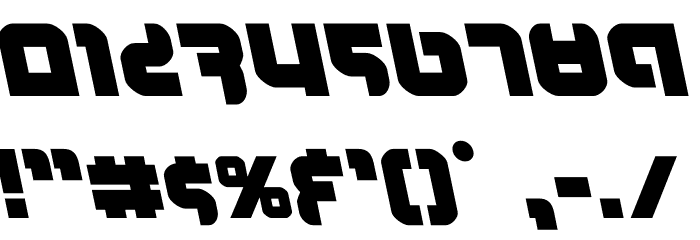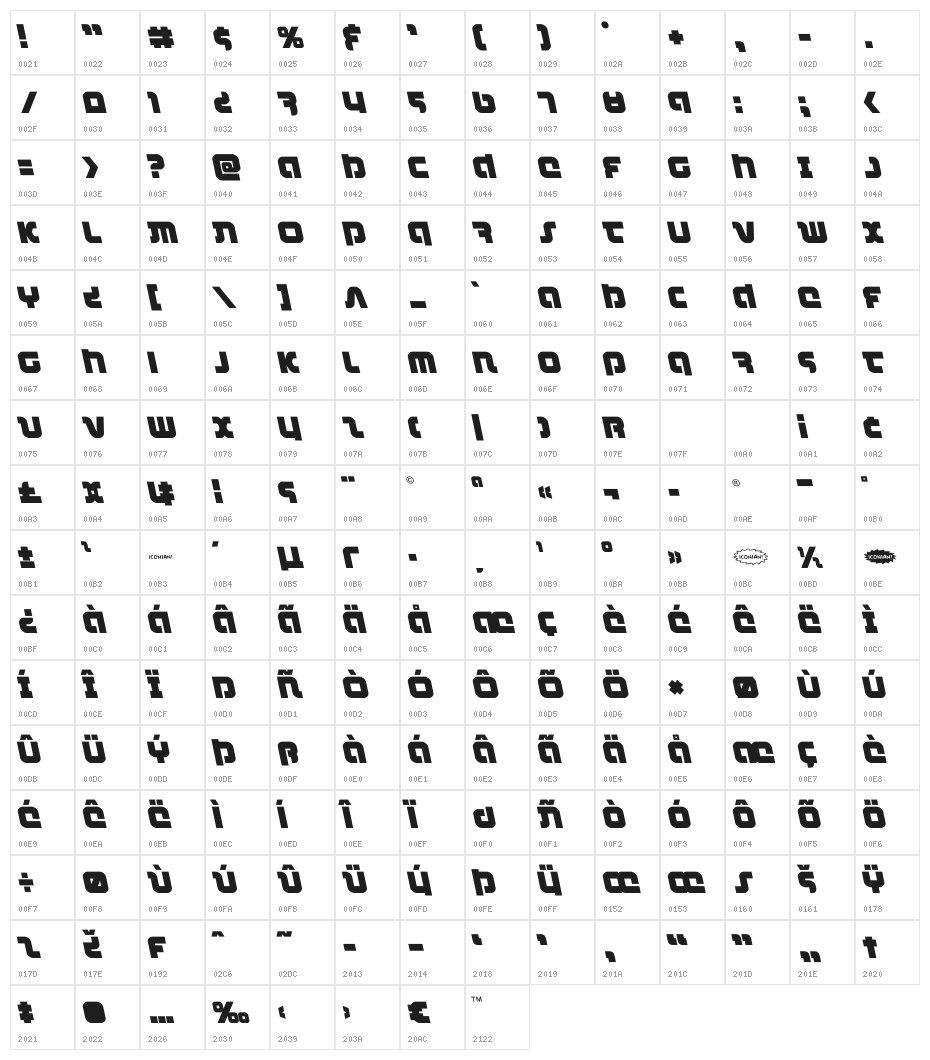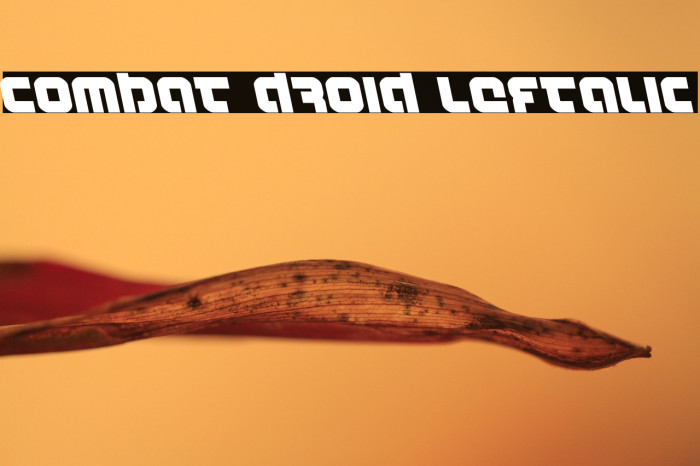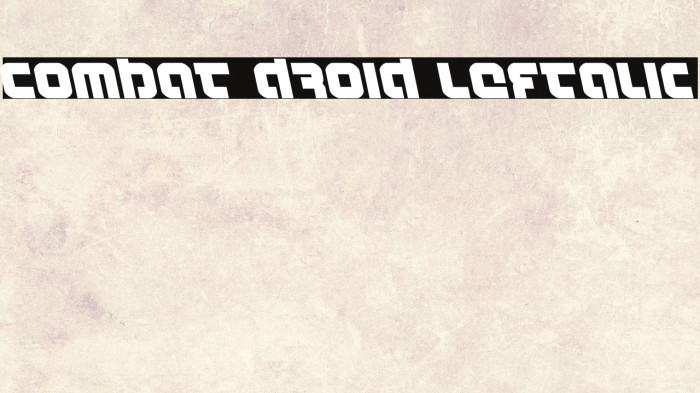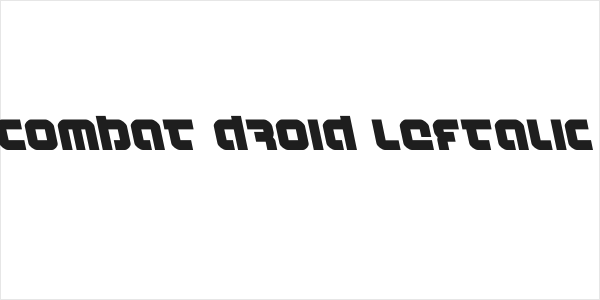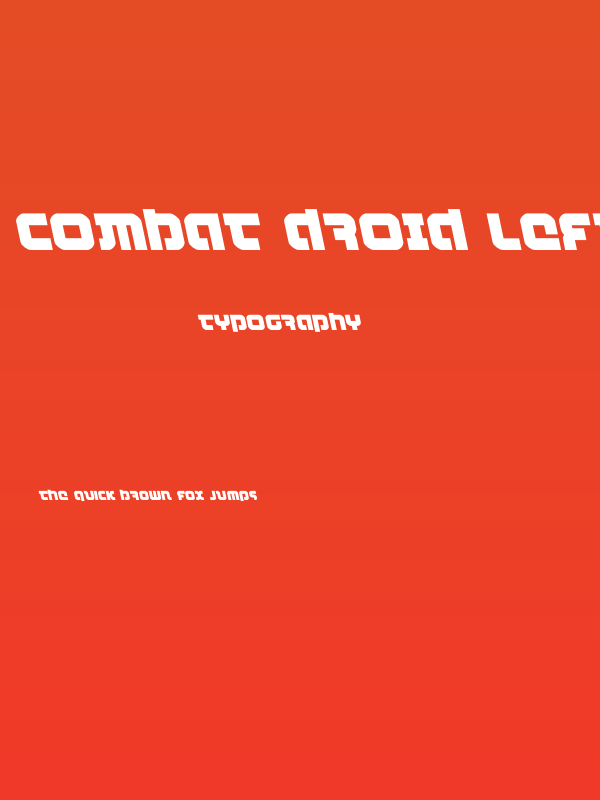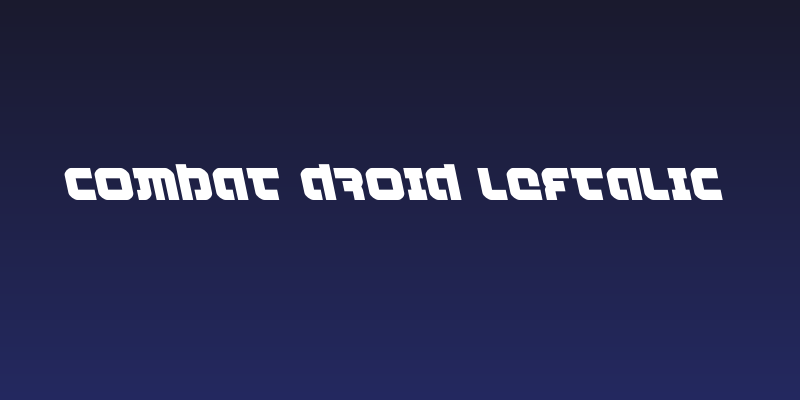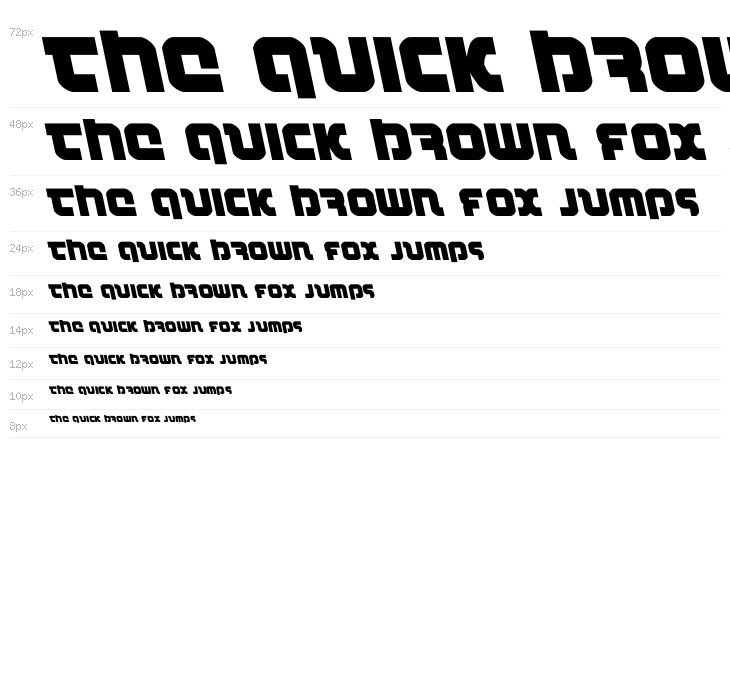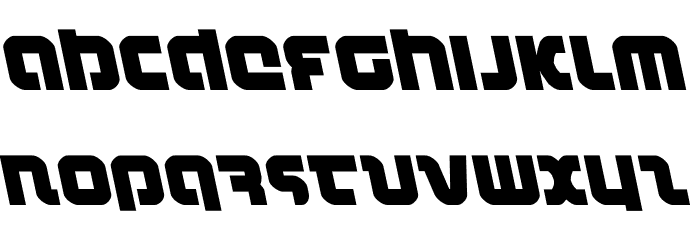
Combat Droid Leftalic Font
Combat Droid Leftalic Description
This font features a bold, futuristic design with a strong geometric structure. The characters are wide and blocky, with sharp angles and a distinctive, mechanical appearance. The style is reminiscent of science fiction and technology themes, making it ideal for projects that require a modern and edgy look. The uppercase and lowercase letters maintain a consistent style, with the lowercase slightly more compact. Numbers and special characters follow the same design principles, ensuring a cohesive appearance across all text elements.
| Proposed Projects | Ideal for sci-fi themed posters, video game titles, tech branding, and futuristic designs. |